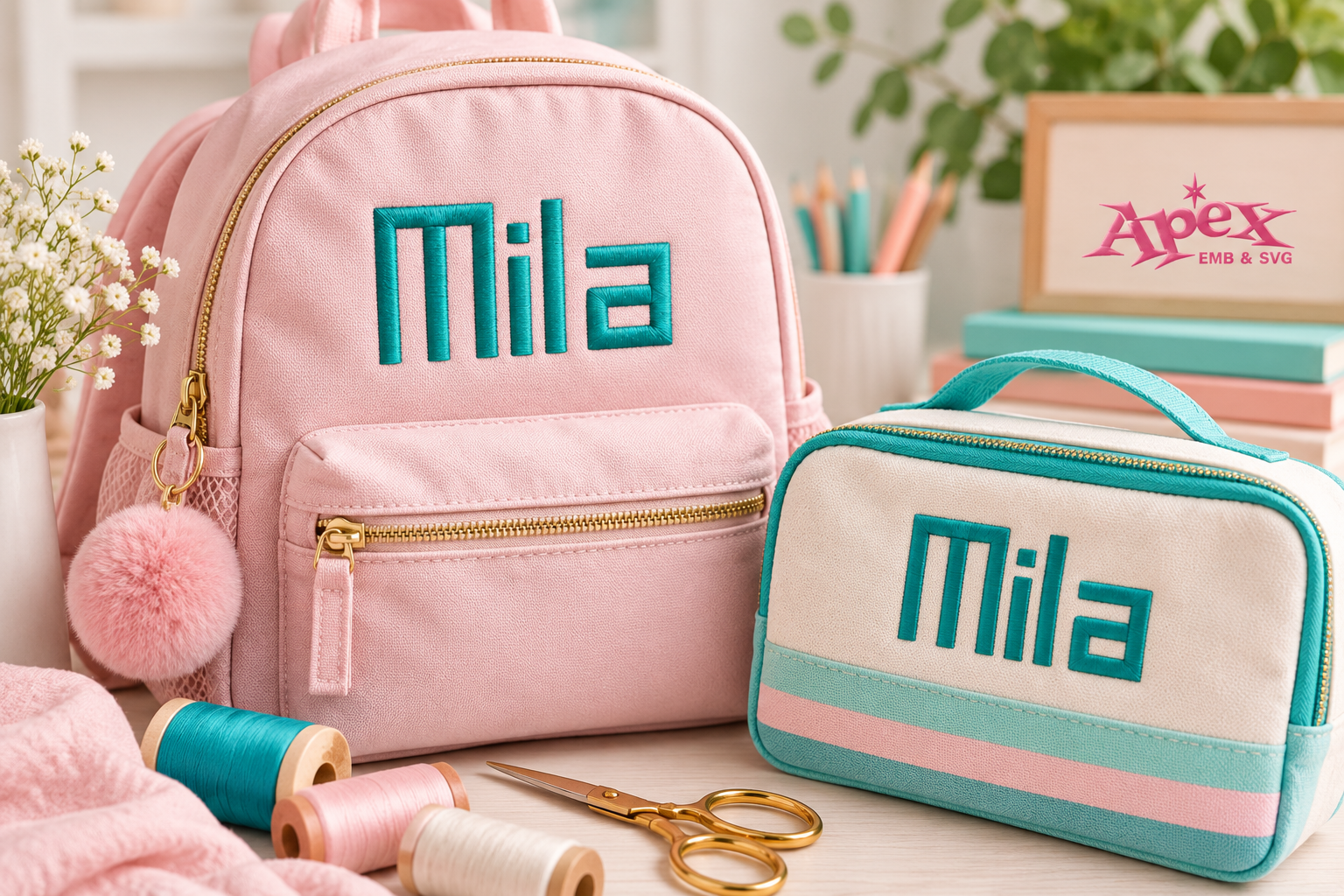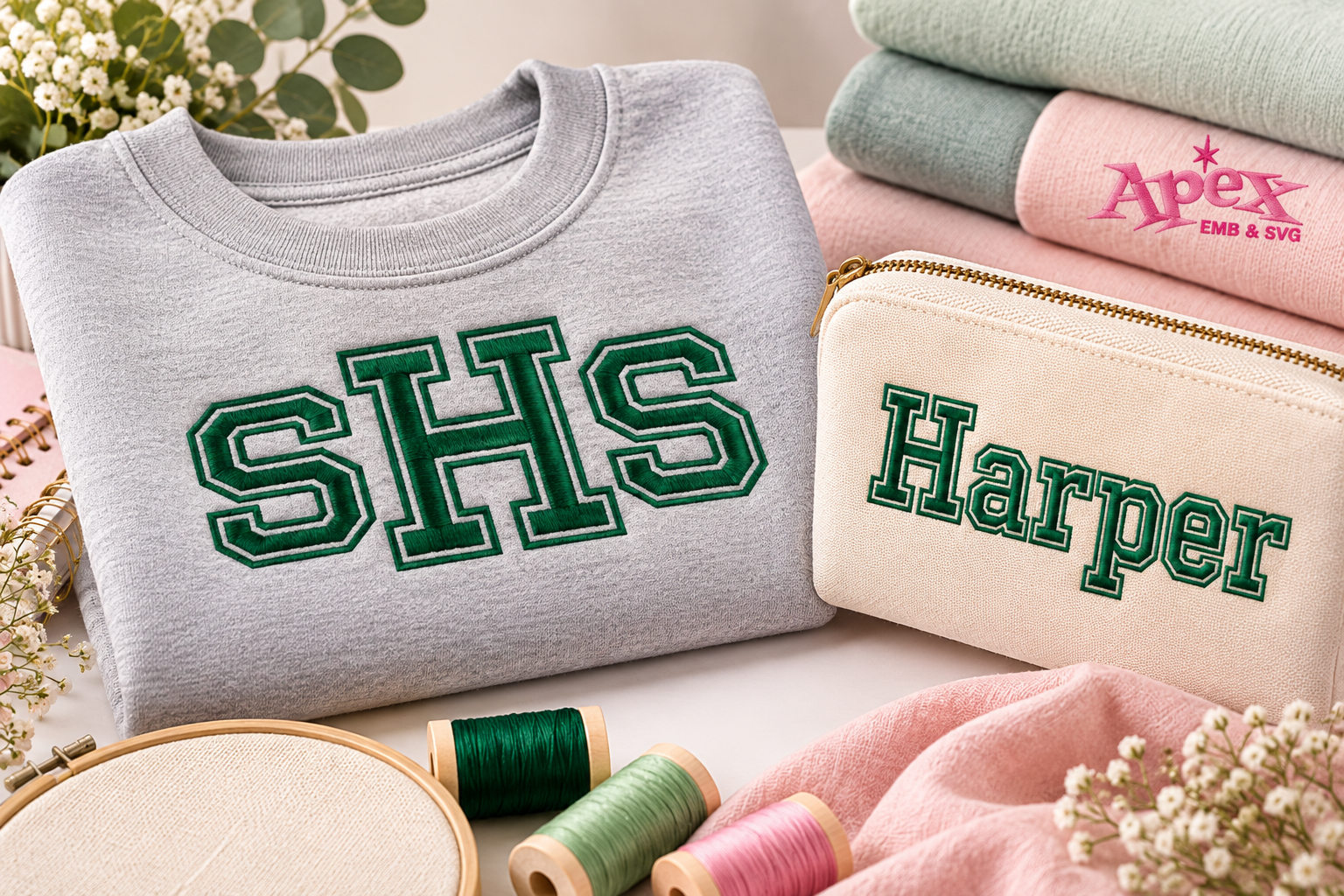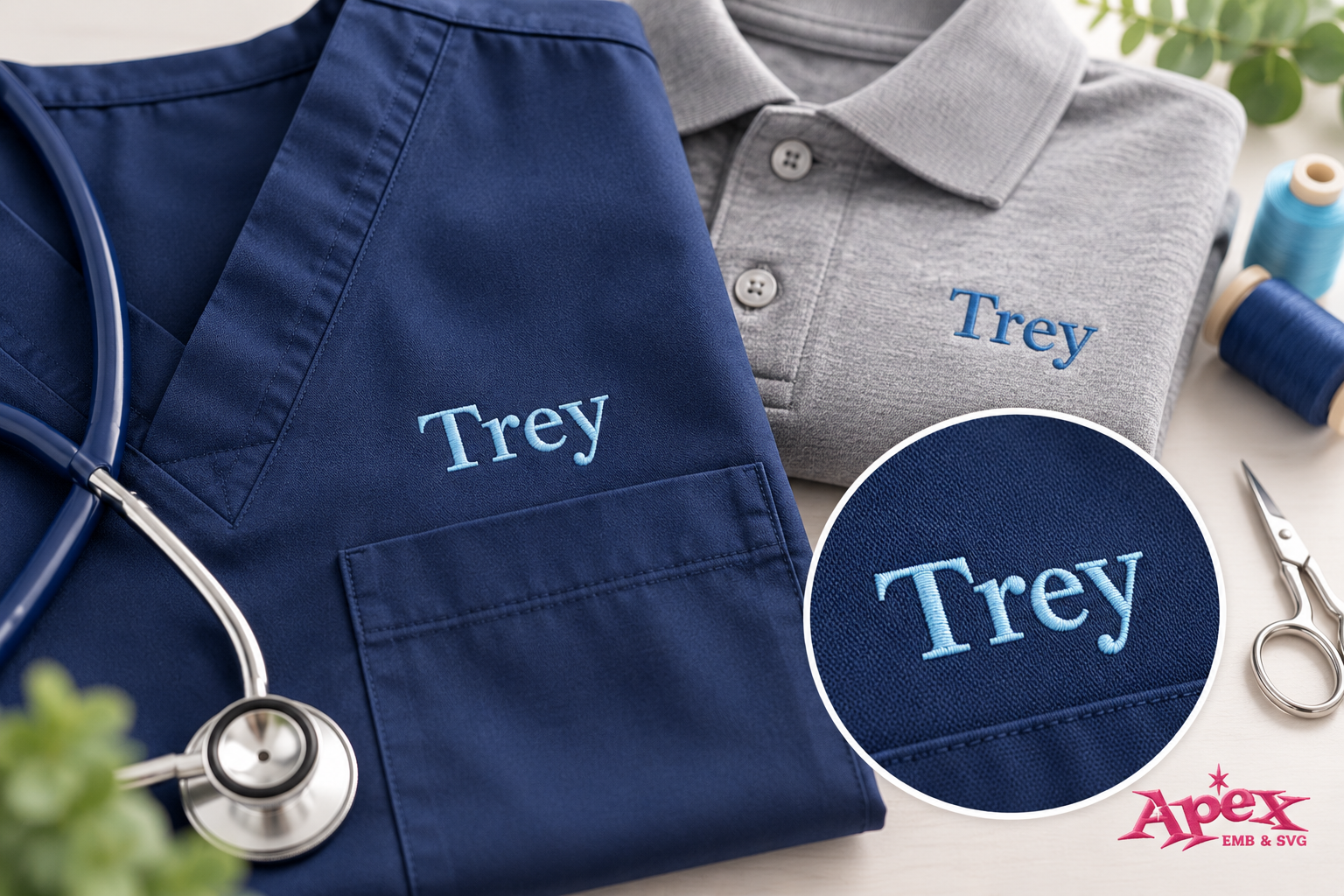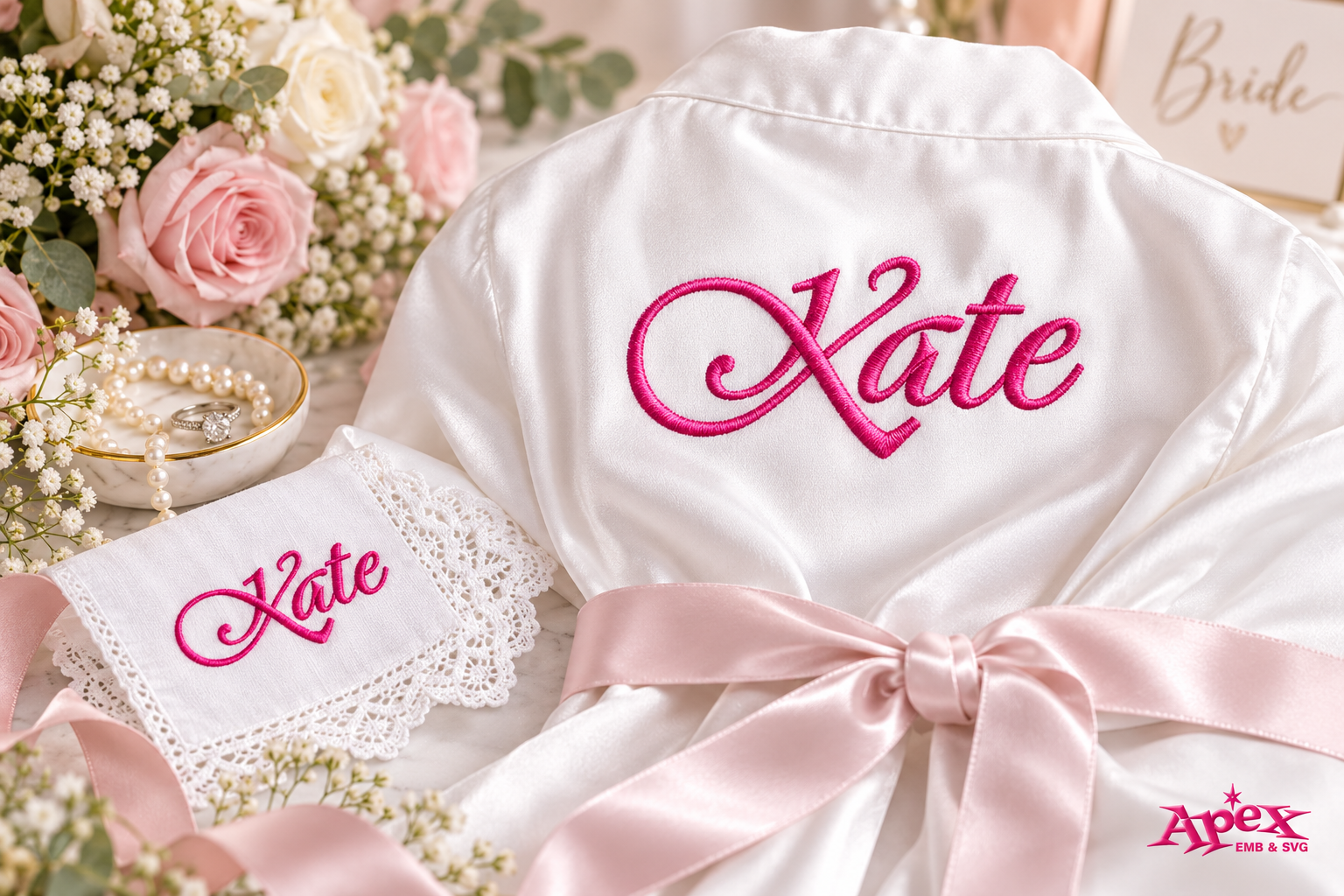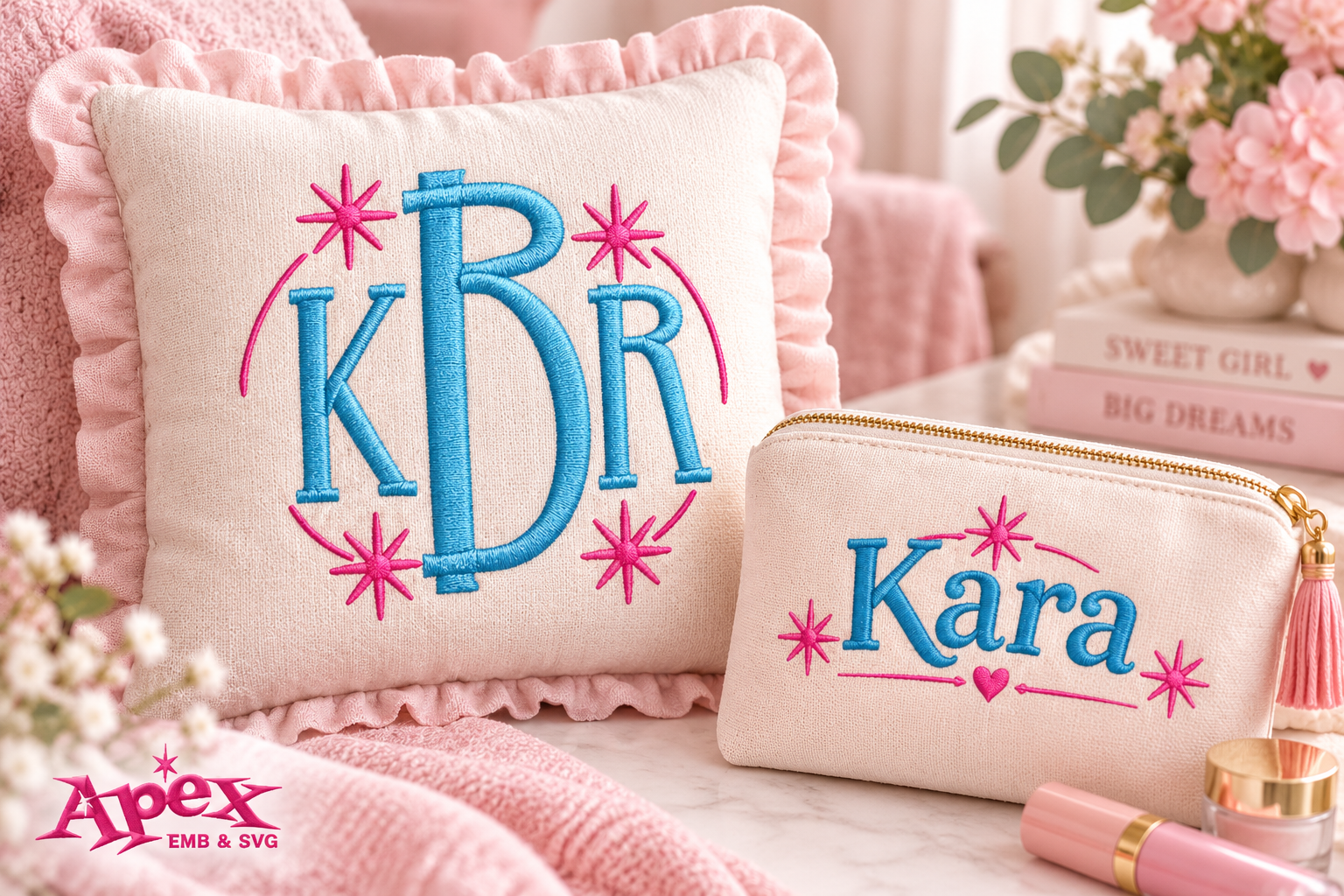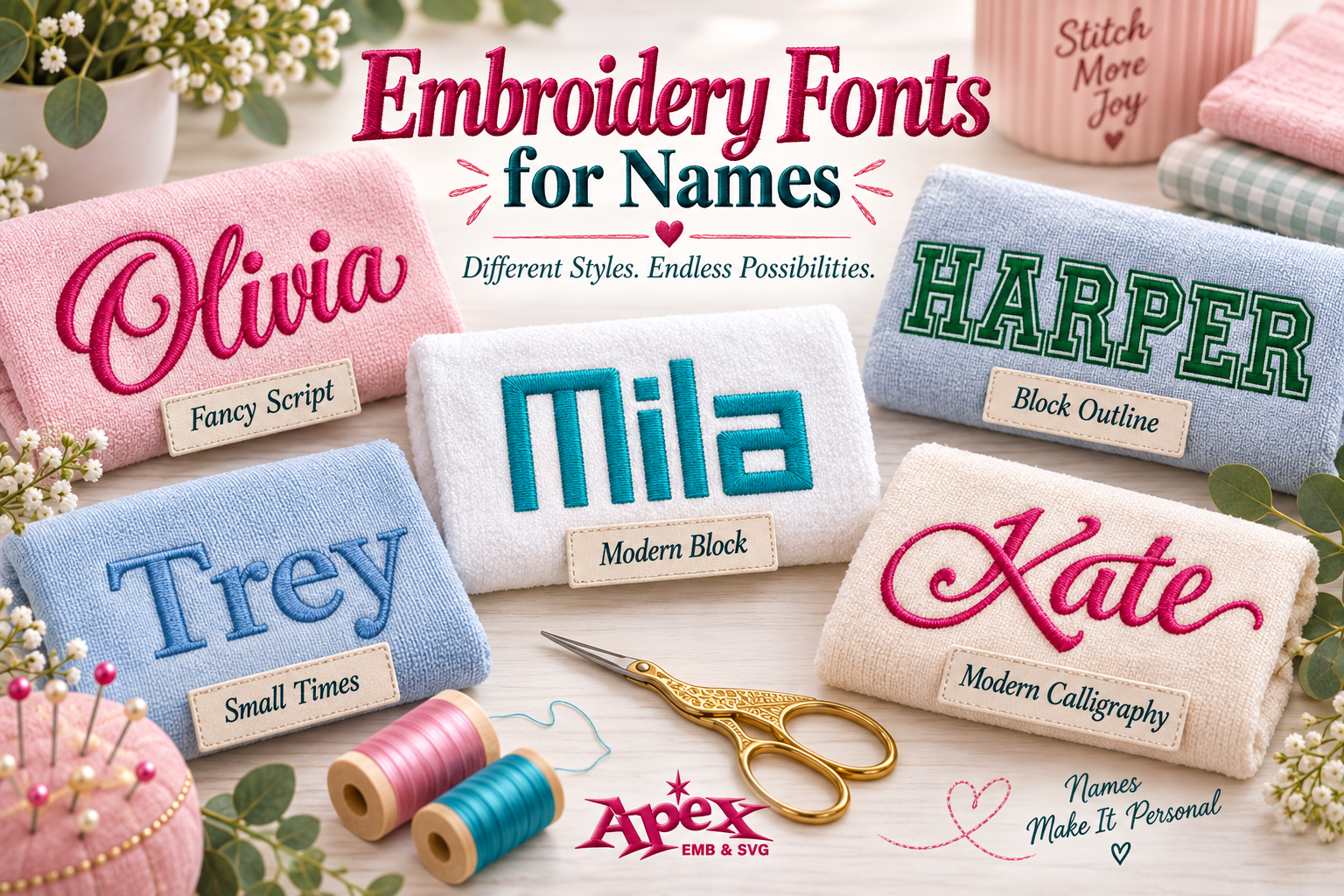
15 Best Embroidery Fonts for Names: Script, Block & Small Lettering
Choosing the right embroidery font for names can make the difference between clean, professional lettering and a name that becomes crowded or difficult to read once stitched.
A font may look beautiful on a screen, but machine embroidery works differently from ordinary typography. Letter height, stitch density, spacing, fabric, and the length of the name all affect the finished result.
Whether you are personalizing a baby blanket, towel, scrub top, backpack, wedding robe, shirt, or handmade gift, the best embroidery font is one that fits both the style of the project and the size at which you plan to stitch it.
At Apex Embroidery Designs, you can find machine-ready lettering in script, block, small lettering, calligraphy, applique, monogram, and specialty styles for a wide variety of personalized projects.
What Is the Best Embroidery Font for Names?
The best embroidery fonts for names have clear letter shapes, enough spacing, and strokes that remain readable after stitching. Block and simple satin-stitch fonts are often best for small or practical names, while script and cursive embroidery fonts work especially well for larger personalized names on towels, blankets, robes, bags, and gifts.
| Embroidery Font Style | Best For | Main Advantage | Things to Consider |
|---|---|---|---|
| Block | Uniforms, hats, bags, shirts | Excellent readability | Less decorative |
| Script | Towels, robes, blankets, gifts | Elegant and personalized | Needs enough room |
| Cursive | Baby items, gifts, decor | Soft handwritten look | Long names can become wide |
| Small lettering | Scrubs, labels, pockets | Fits compact spaces | Needs small-size digitizing |
| Bold lettering | Sports bags, kids' items | Strong visibility | More thread and density |
| Calligraphy | Weddings, keepsakes | Elegant premium look | Best with adequate size |
| Applique lettering | Shirts, blankets, large names | Big visual impact | Requires additional applique steps |
15 Best Embroidery Fonts for Names from Apex
Instead of choosing a regular computer font and hoping it converts well to stitches, you can start with a lettering set already created for machine embroidery.
Here are 15 Apex fonts worth considering depending on the name, size, and type of project.
Best Script and Cursive Embroidery Fonts for Names
1. Fancy Script Embroidery Fonts
Best for: Baby blankets, towels, robes, personalized gifts
Style: Traditional script
Sizes: 0.50", 1", and 1.75"
Includes: Uppercase and lowercase letters
The Fancy Script Embroidery Fonts set is one of the most versatile choices when you want a name to look elegant without becoming overly formal.
Because both uppercase and lowercase letters are included, it works well for full first names rather than just initials. The three size options also make it easier to match the lettering to different projects.
Use the smaller sizes on garments and smaller gifts, while the larger lettering can stand out beautifully on blankets and towels.
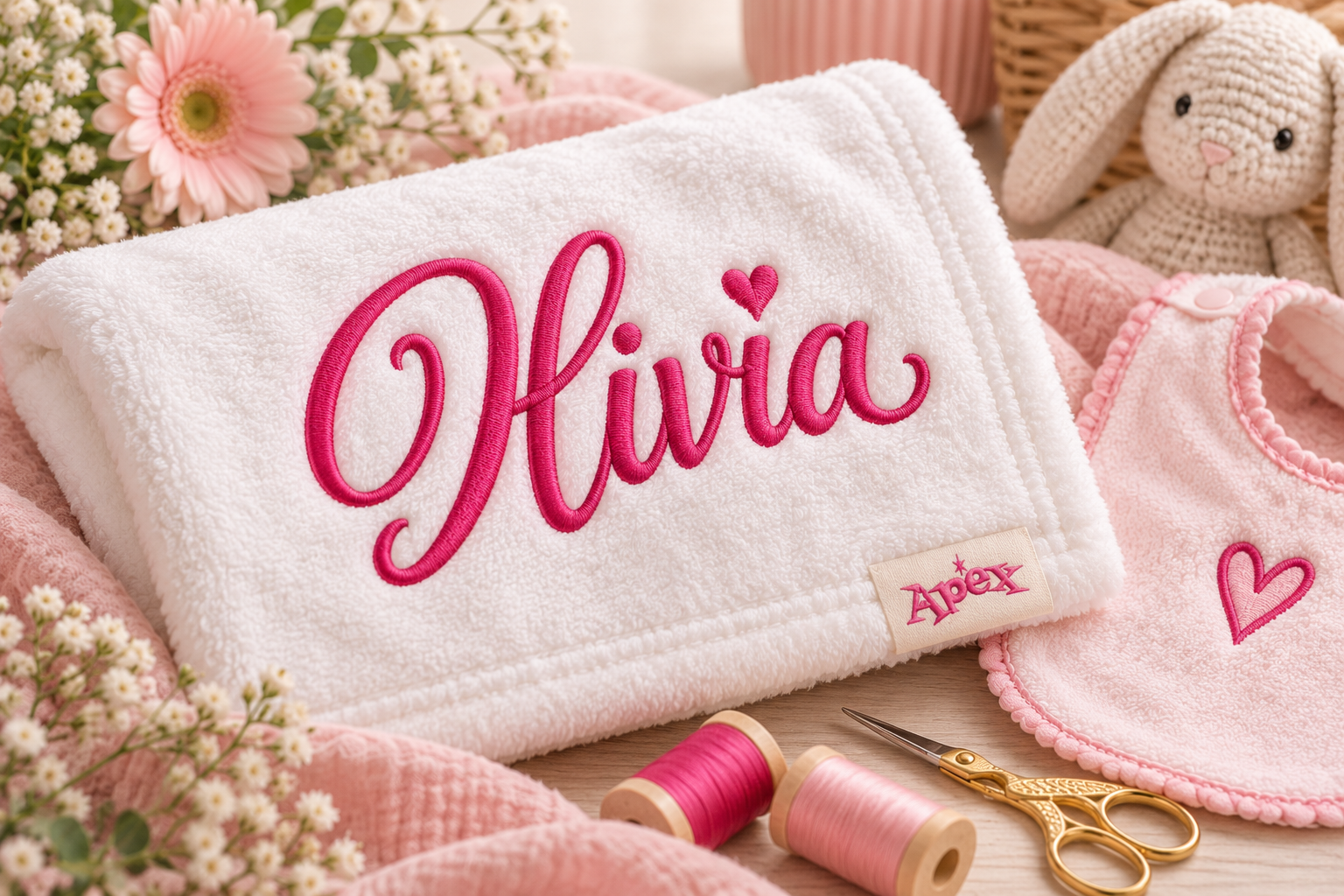
2. Fine Script Embroidery Font
Best for: Names, boutique clothing, towels, gifts
Style: Clean cursive satin stitch
Sizes: 0.75", 1", and 1.5"
The Fine Script Embroidery Font is a strong choice if you want cursive lettering that still prioritizes readability.
Its cleaner shapes make it useful for personalized names where highly decorative flourishes might become distracting. It is especially suitable for medium-sized lettering on clothing, linens, bags, and boutique projects.
3. Ferris Embroidery Font
Best for: Full names, clothing, bags, gifts
Style: Satin-stitch lettering
Sizes: 0.75", 1", 2", and 2.5"
Includes: Uppercase and lowercase
The Ferris Embroidery Font gives you a particularly useful size range for name embroidery.
Smaller versions can work for clothing and compact personalization, while the 2" and 2.5" options give names more visual presence on bags, towels, blankets, and larger projects.
Because the set contains both uppercase and lowercase letters, it is a practical choice for embroidering complete names.
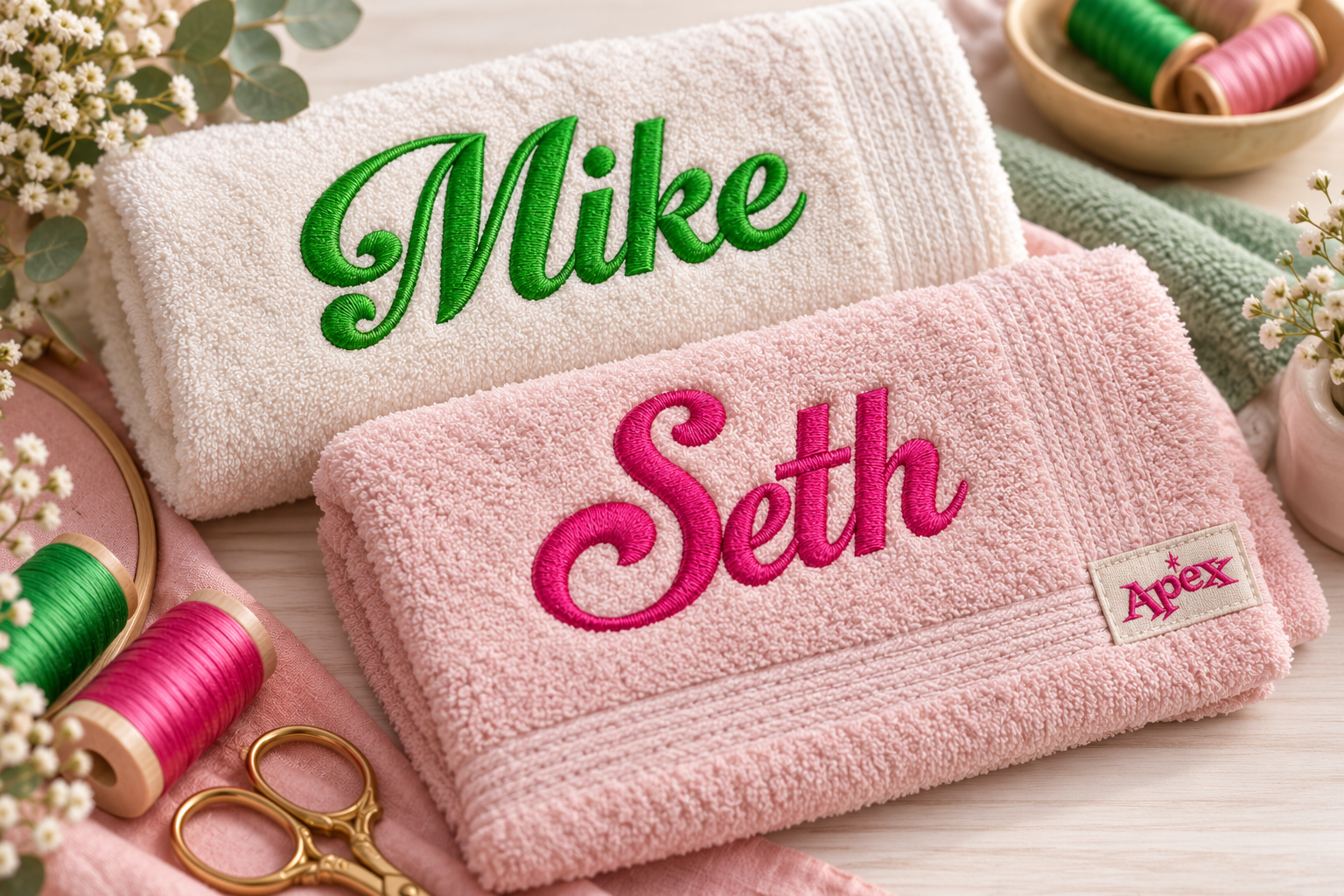
4. Script Style Embroidery Font
Best for: Large initials, short names, decorative lettering
Style: Script
Size: 2" uppercase letters
The Script Style Embroidery Font works best when you want larger script lettering with a strong decorative presence.
Because this set focuses on uppercase letters, it can be a good choice for initials, all-cap names, short words, and projects where each letter is intended to stand out.
Best Block Embroidery Fonts for Names
Block fonts are often the safest option when readability matters more than decoration.
They are particularly useful for:
- Uniforms
Choose Small Times or Gothic Small when space is limited. Try Modern Block or Block Type when readability matters most. Use Fine Script, Fancy Script, or Ferris for a more personal look, and choose Modern Calligraphy when you want elegant lettering for weddings and keepsakes.
For larger statement names, applique fonts such as Modern Block Applique can turn the lettering into the main feature of the project.